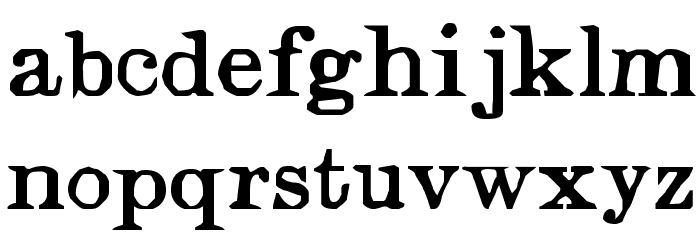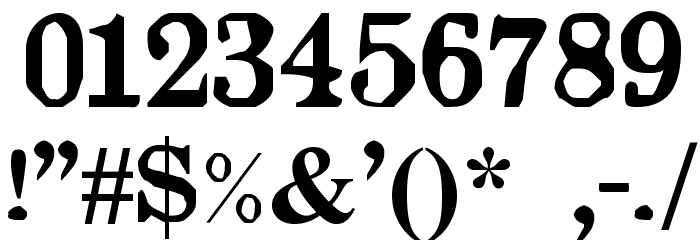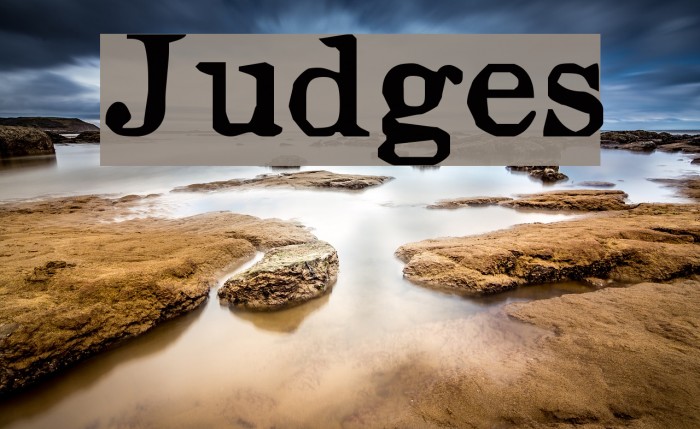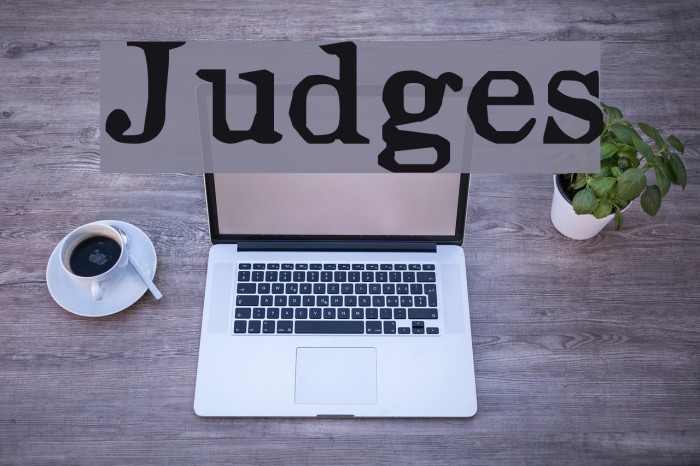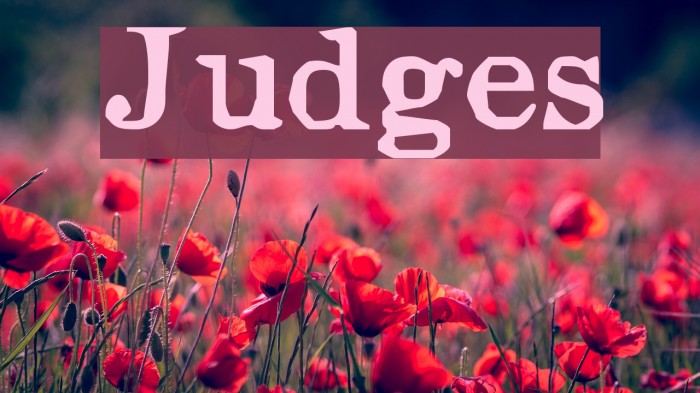
Judges Font
This font exhibits a bold and commanding presence with its thick, slab serif style. The characters are well-defined, featuring strong vertical and horizontal lines that create a sense of stability and authority. The uppercase letters are particularly striking, with a uniform height and width that convey a sense of balance and symmetry. The lowercase letters maintain this robust style, with slightly rounded edges that add a touch of softness to the overall design. The numerals are equally bold, ensuring clarity and readability. Special characters are designed with the same attention to detail, making them stand out distinctly. This font's high contrast in stroke thickness enhances its legibility and visual impact.
A bold, slab serif font with high contrast and strong, authoritative character design.
- Proposed Projects: Ideal for headlines, posters, branding, and any project requiring a strong, impactful typeface.
- Category: Slab Serif
- Overall Style: Classic